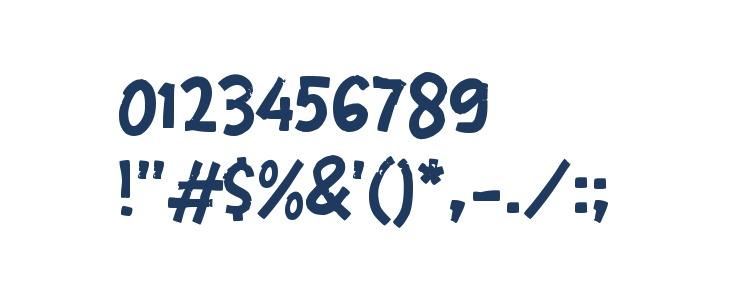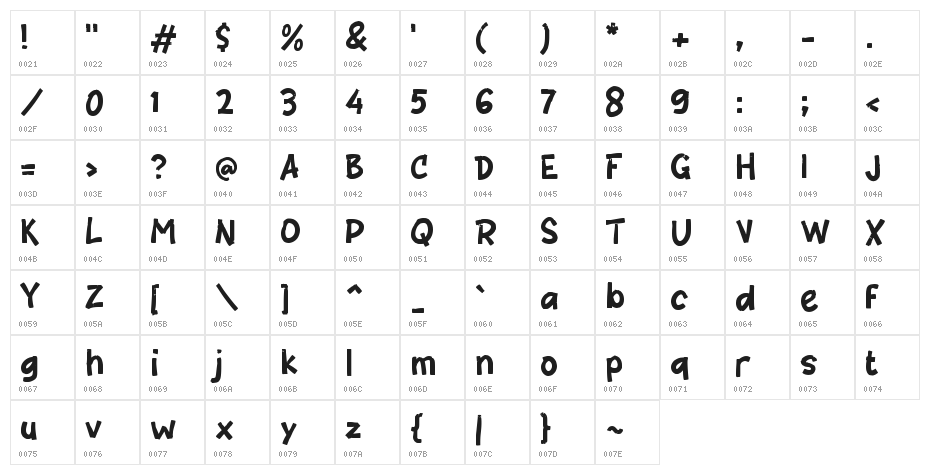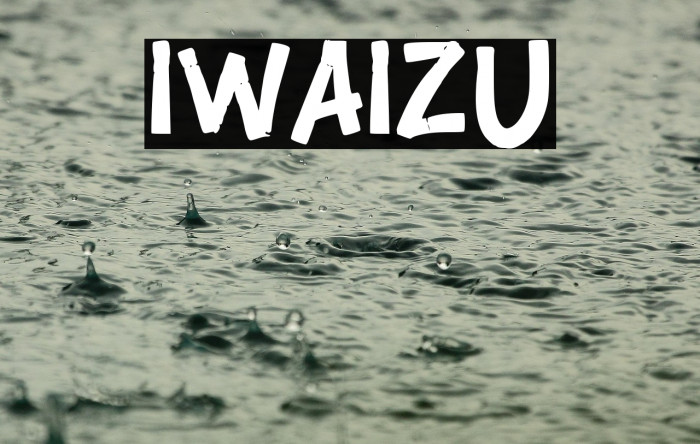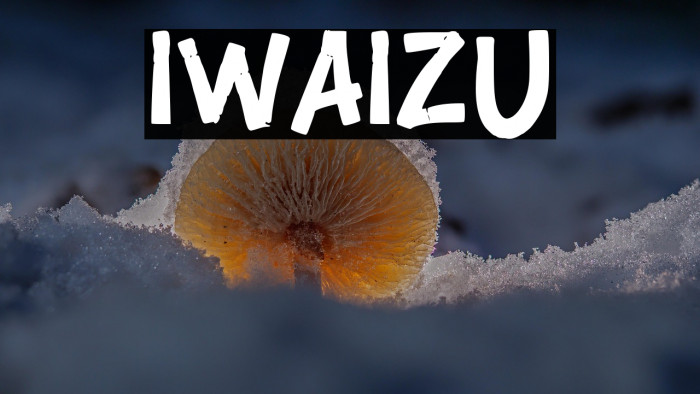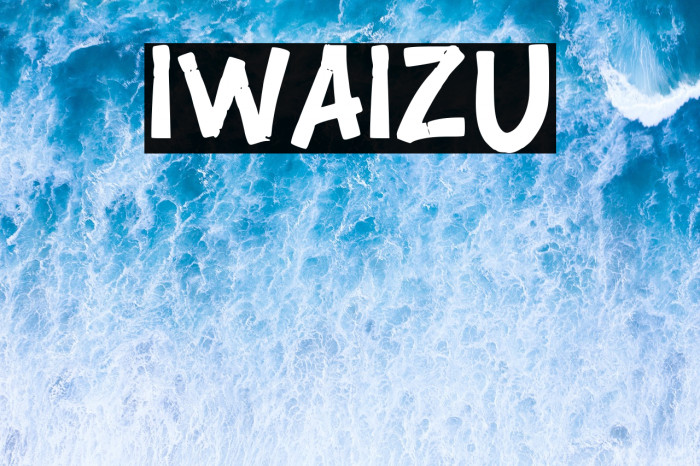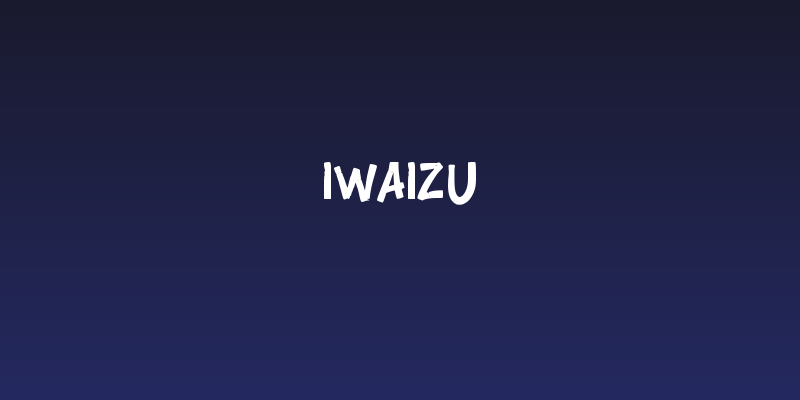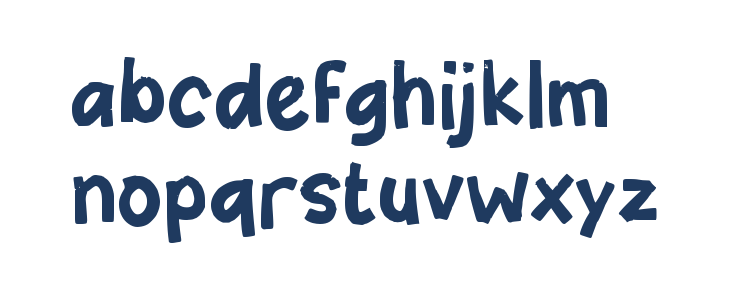
IWAIZU Font
IWAIZU Description
This font features a bold and playful design with a hand-drawn aesthetic. The characters have a slightly irregular and organic feel, giving them a lively and energetic appearance. The strokes are thick and consistent, contributing to a strong visual impact. The uppercase and lowercase letters maintain a cohesive style, while the numerals and special characters blend seamlessly with the overall design. This font's informal and dynamic nature makes it suitable for creative and fun projects.
| Overall Style | Playful |
| Use Case | Logos, Headlines, Posters |
| Proposed Projects | Ideal for children's books, playful branding, posters, and creative social media graphics. |